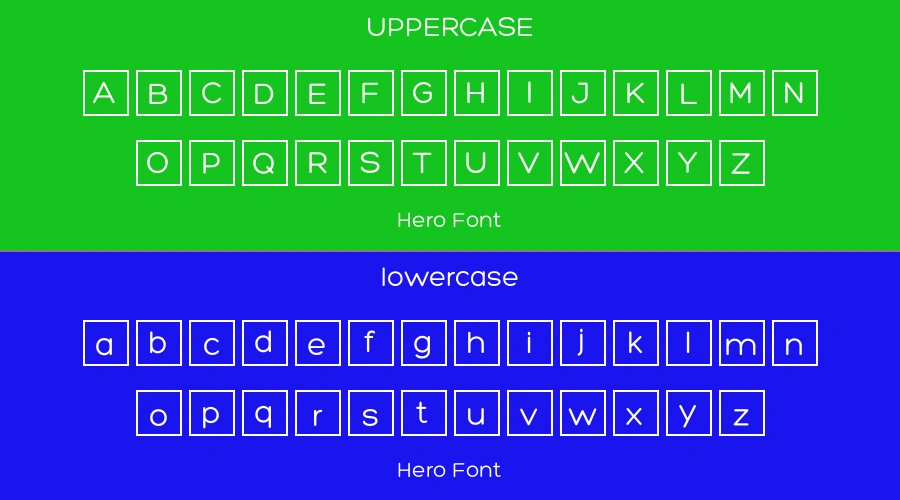
About Hero Font
Hero Font stands out for its distinctive combination of harmonic curves and accuracy. Ideal for technical documentation, it provides the functionality and market credibility that professional projects demand. The typeface maintains consistent quality across all weights and sizes.
Key features include refined unique personality and practical historical alternates, enhancing typographic expression. In footnotes applications, Hero Font demonstrates exceptional output consistency. The corner treatment and technical innovation contribute to its distinctive character and professional appeal.